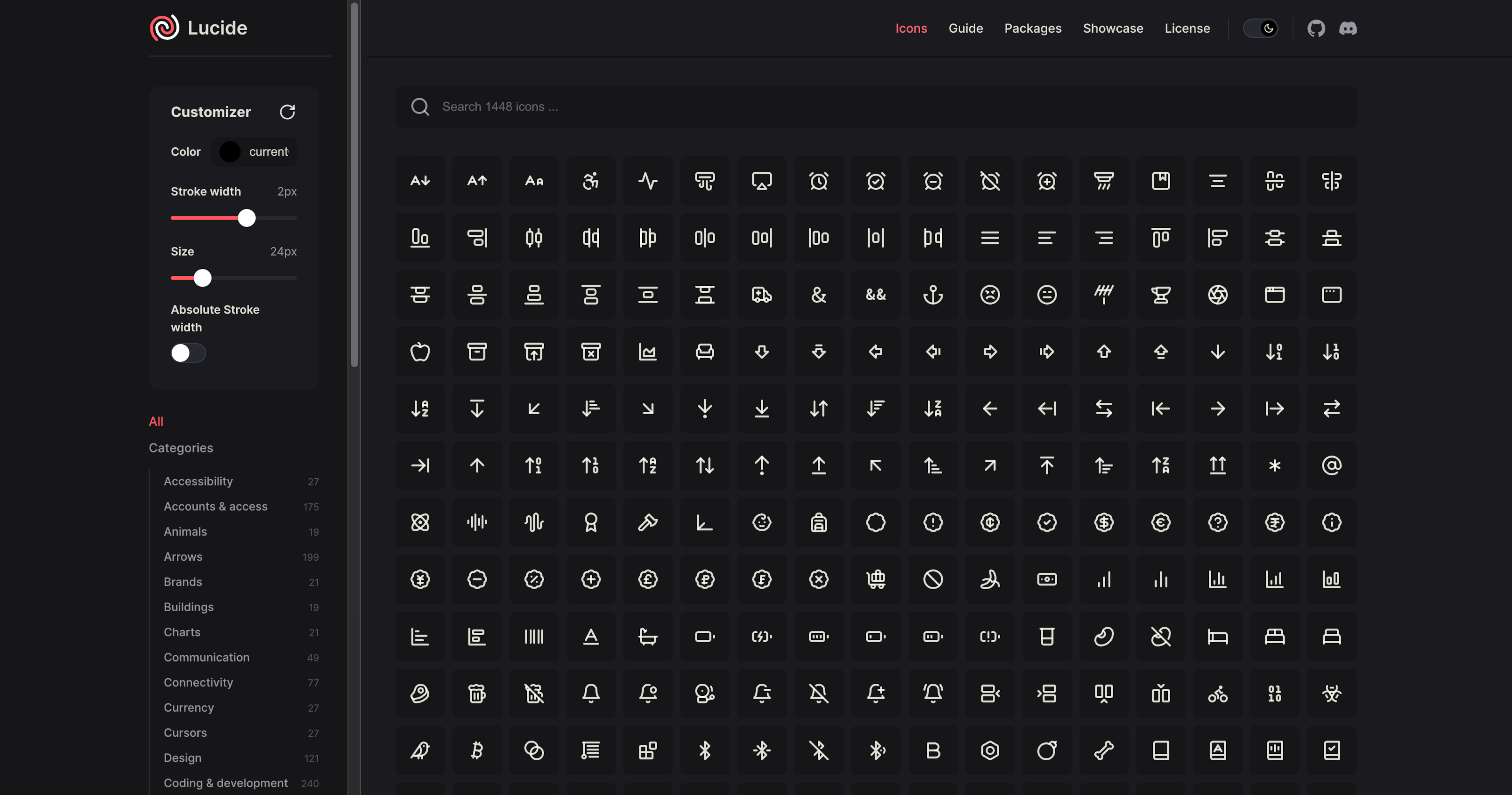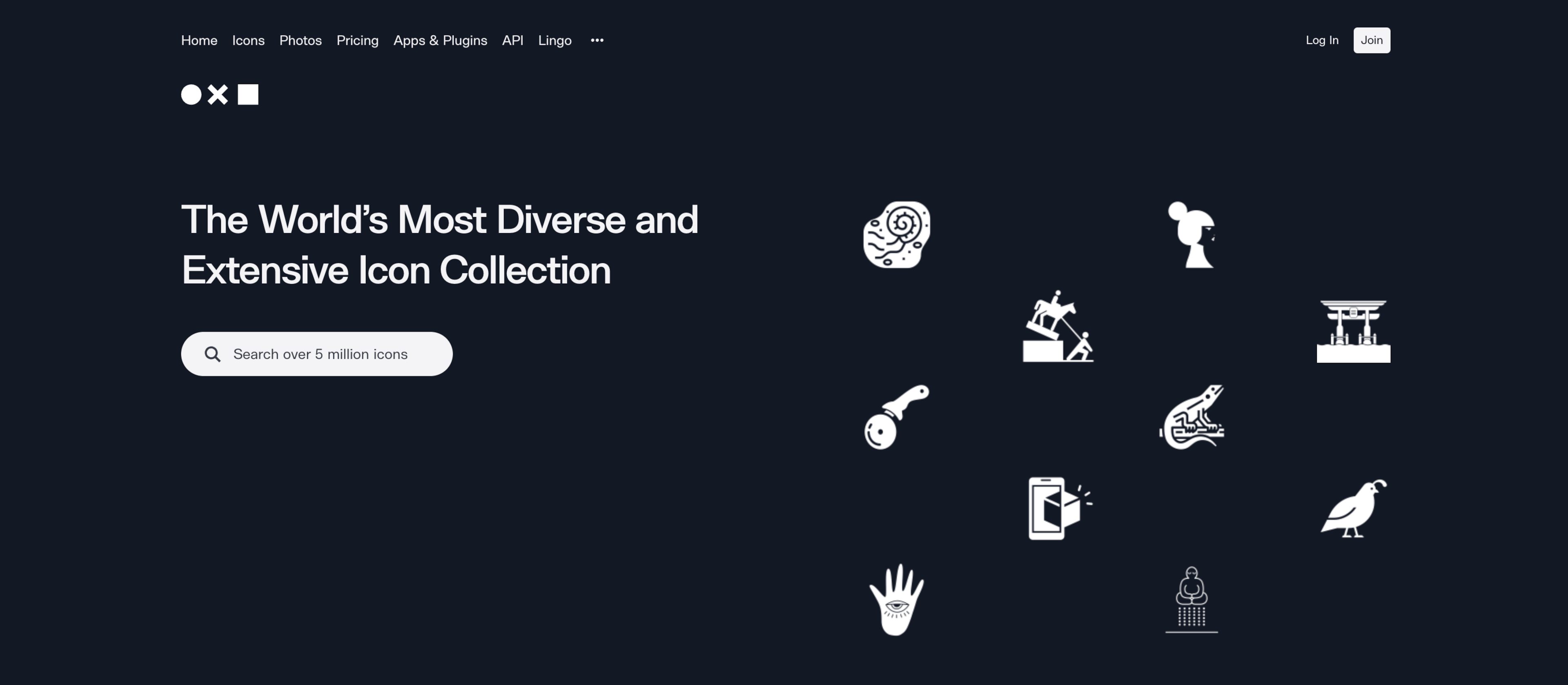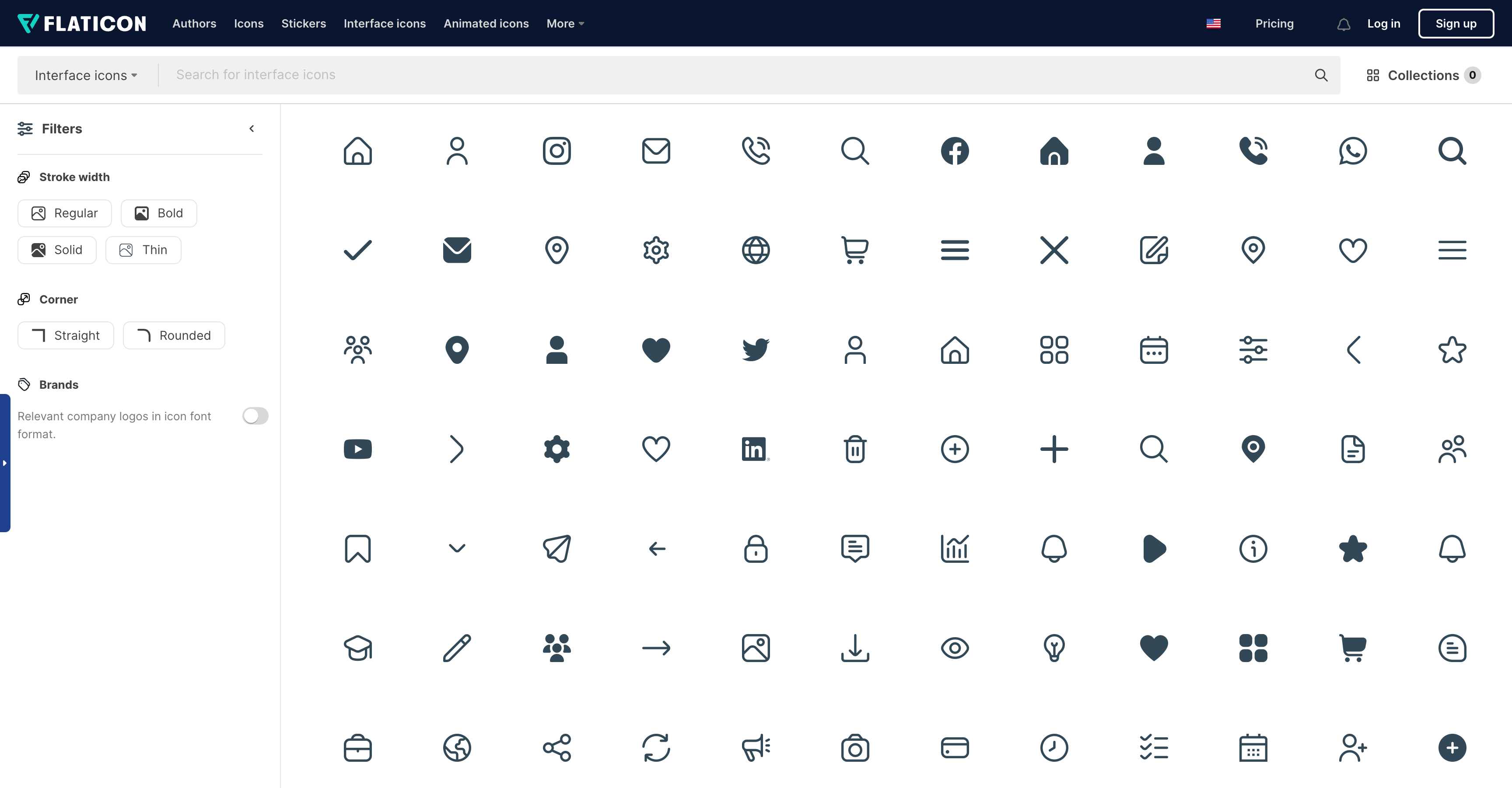
Font Awesome has earned its reputation as a leading icon library, trusted by countless web designers for its vast collection and straightforward integration. Yet, it's not always the perfect fit for every project. Maybe you're after a different visual style, or you find it impractical to load an entire set when you only need a few.
Whatever drives your search for Font Awesome alternatives, this blog post has you covered. We've rounded up the top 10 Font Awesome alternatives for 2025, featuring a mix of traditional icon fonts and modern SVG options.
1. Hugeicons
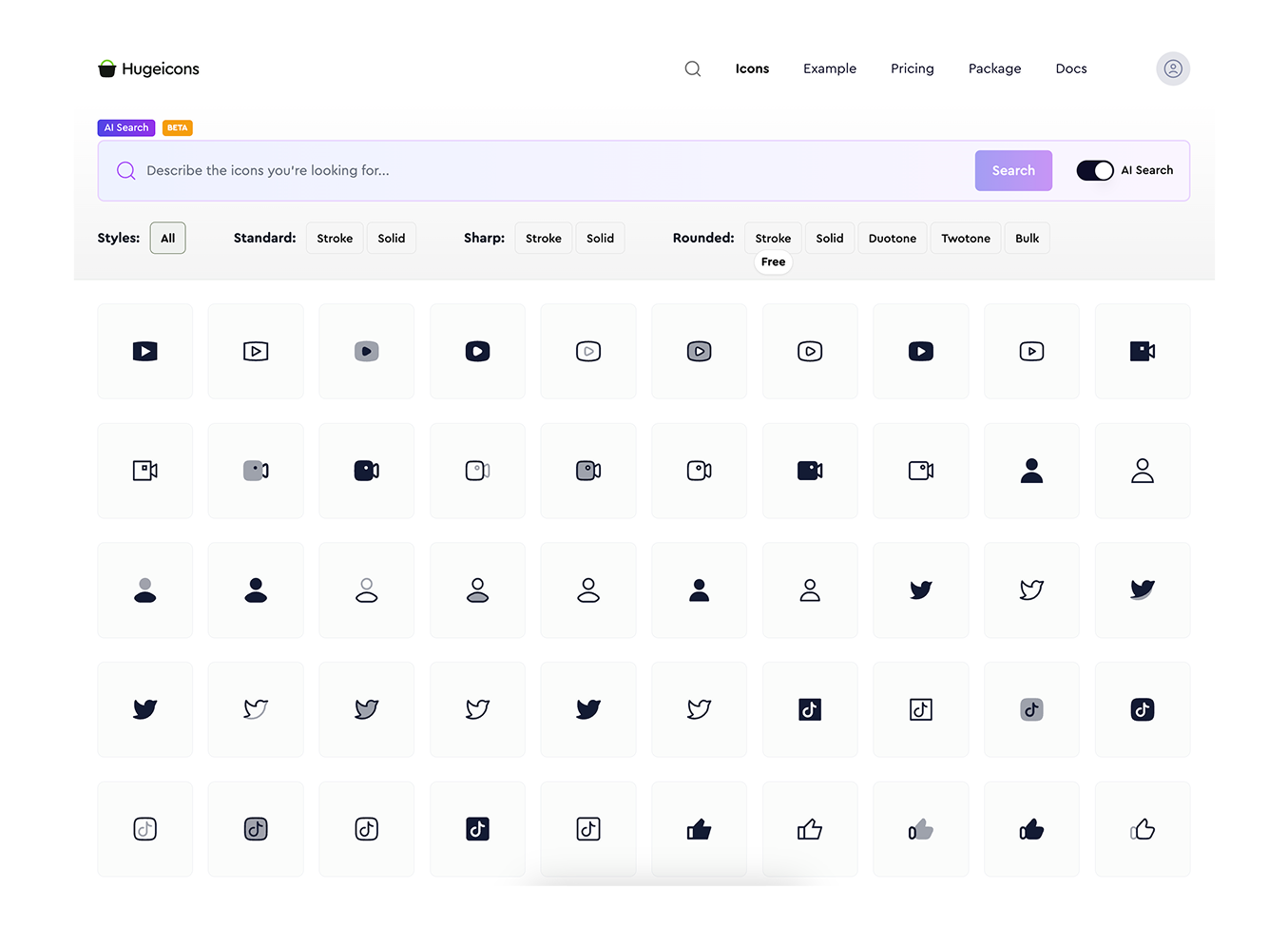
Hugeicons Features
- Massive Icon Collection – Over 37,000 icons across 59 categories, with continuous updates.
- Open-Source Access – Includes 4,000+ free and open-source icons for unlimited personal and commercial use.
- Multiple Styles – Offers a variety of styles, including:
- Rounded (Stroke, Two-tone, Solid, Bulk, Duotone)
- Sharp (Stroke, Solid)
- Standard (Stroke, Solid)
- Customizable Options – Icons available in both stroke and outlined/flattened variations for flexible design choices.
2. Feather Icons
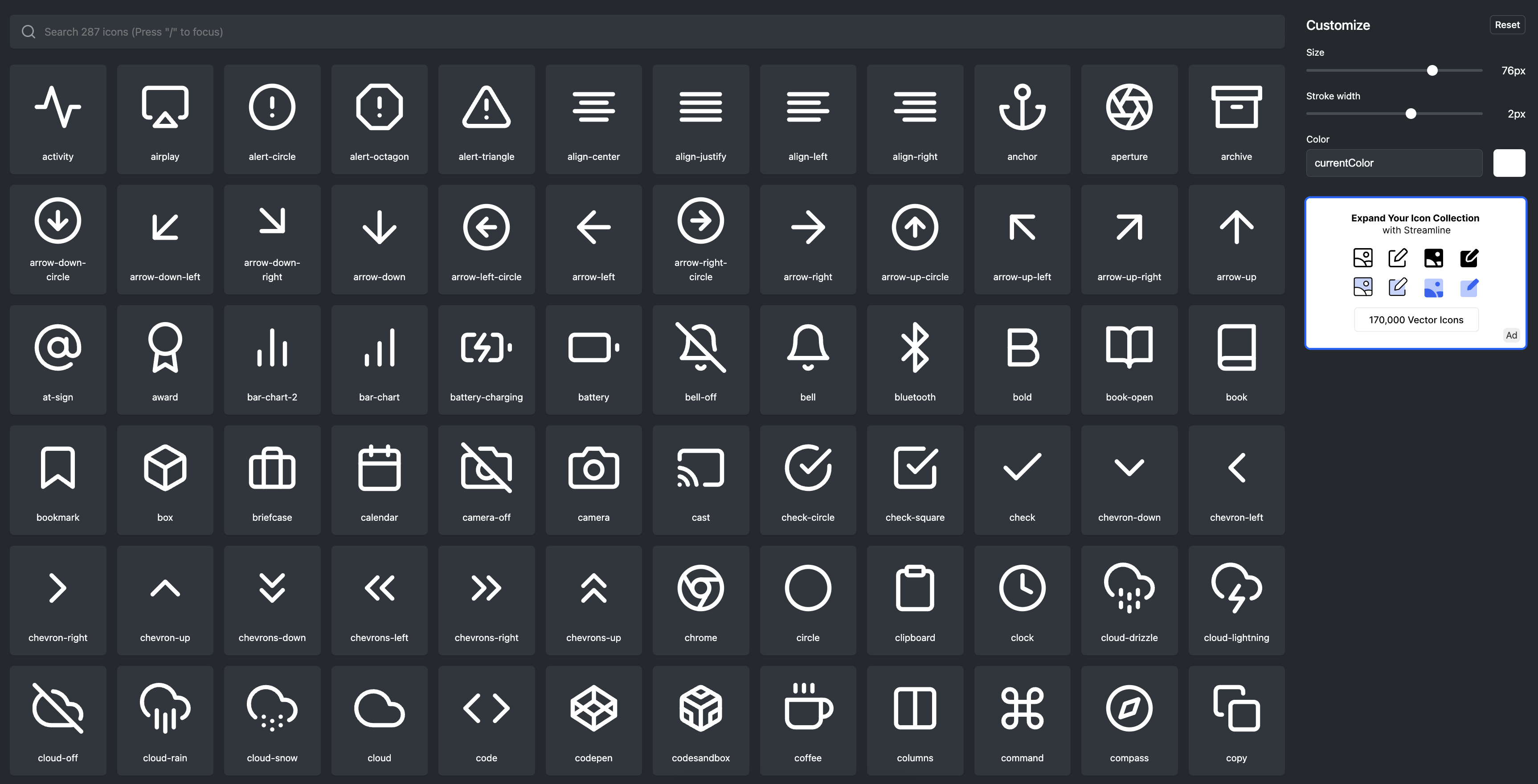
Feather Icons Features:
- Open-source
- Over 280+ ultra-crisp, lightweight line icons
- SVG-based for easy customization
- Minimalist design for modern UI/UX
Pros:
- High-quality open-source icons
- Lightweight and scalable for web & mobile apps
- Simple and elegant, fitting various design styles
- Room for improvement in usability and visual coherence
Cons:
- Limited icon set compared to larger libraries
- No built-in customization for stroke width or styles
- Variability in visual consistency across different screens and DPIs
Feather Icons is a high-quality, open-source icon set known for its clean design and community-driven development. While it outshines many free alternatives, it could benefit from a larger icon selection and improved consistency across different screen resolutions. However, continuous updates and contributions promise future enhancements.
3. Material Design Icons
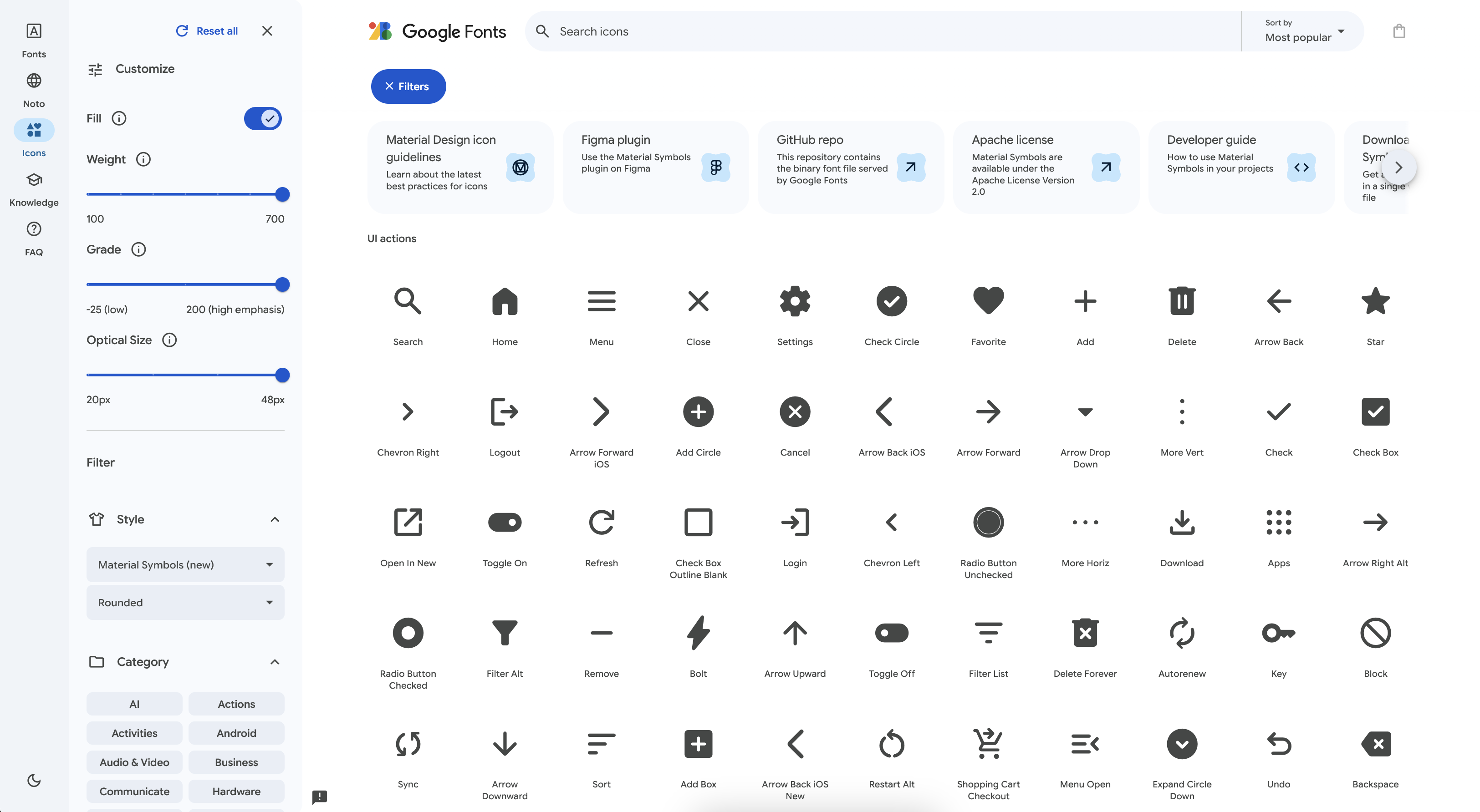
Material Design Icons Features:
- Follows Google's Material Design aesthetics
- Over 2,500+ icons across 15 categories
- Supports multiple formats (SVG, PNG, web font)
- Extensive documentation and structured guidelines
Pros:
- Mobile-first design approach
- Optimized for accessibility and clarity
- Dark theme and adaptive icon options available
- Easily integrates with Google Fonts and Material UI frameworks
Cons:
- Limited customization options compared to fully editable icon sets
- Potential limitations on creativity due to the comprehensive design system
Material Design Icons provide a structured, consistent collection that enhances UI interactions with built-in animations. While the strict design system may limit creative flexibility, it's a great choice for those who prefer Google's responsive aesthetic.
4.Phosphor Icons
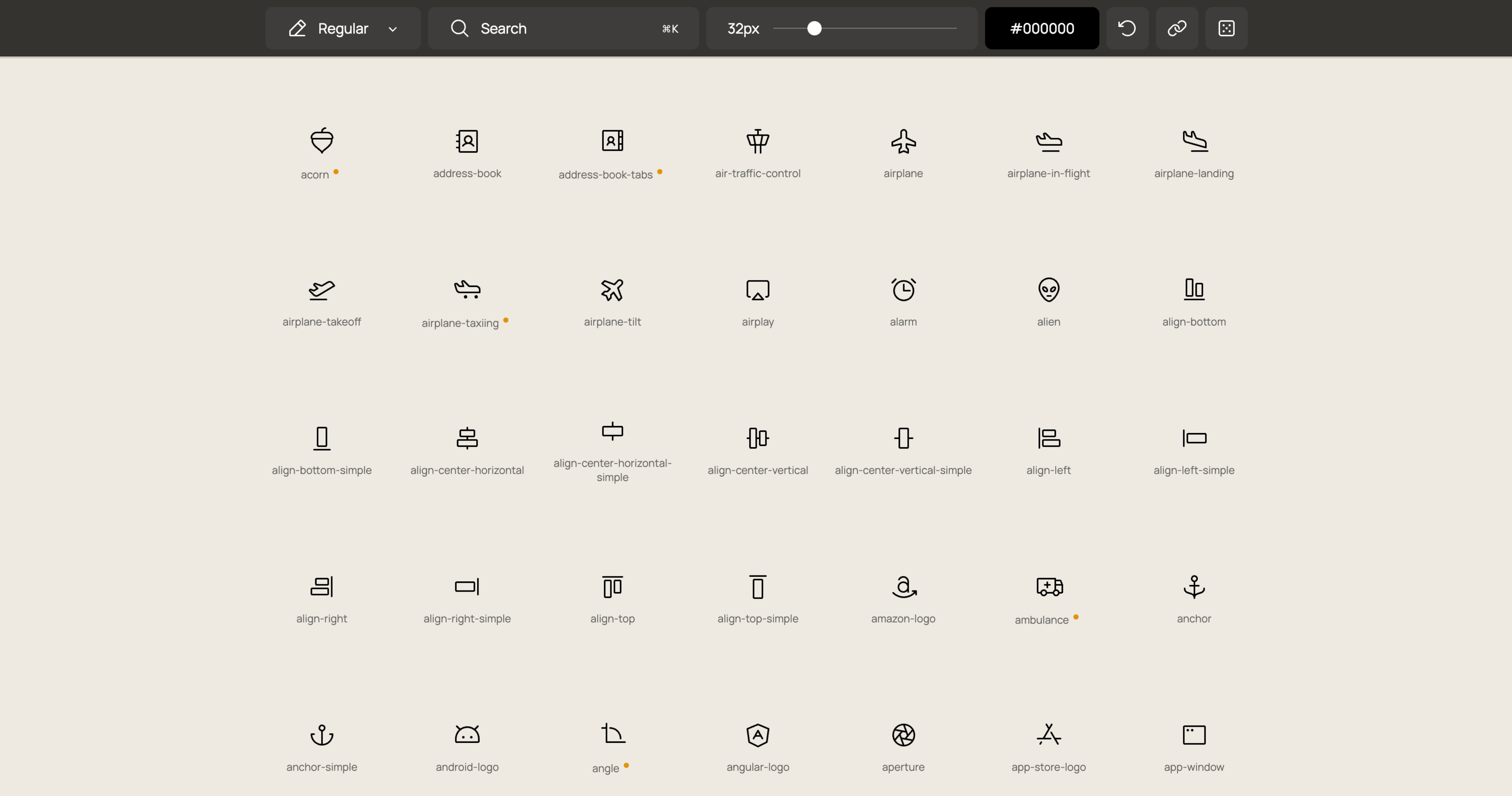
Phosphor Icons Features:
- Streamlined and modern design
- Versatile usage
- Over 6,000 icons in multiple styles
- Supports multiple formats including SVG, PNG, and web fonts
Pros:
- Appeals to minimalists
- Can be used across various design projects
- Offers thin, regular, bold, and fill styles for flexibility
Cons:
- Limited collection compared to other options
- Some icons may lack fine detail at smaller sizes
Phosphor Icons is a sleek, minimalist icon library featuring over 6,000 icons in various styles, including thin, regular, bold, and fill. While it has a smaller collection than some competitors, its versatility and contemporary aesthetic make it a great choice for those who prioritize quality and adaptability in design.
5. Bootstrap Icons
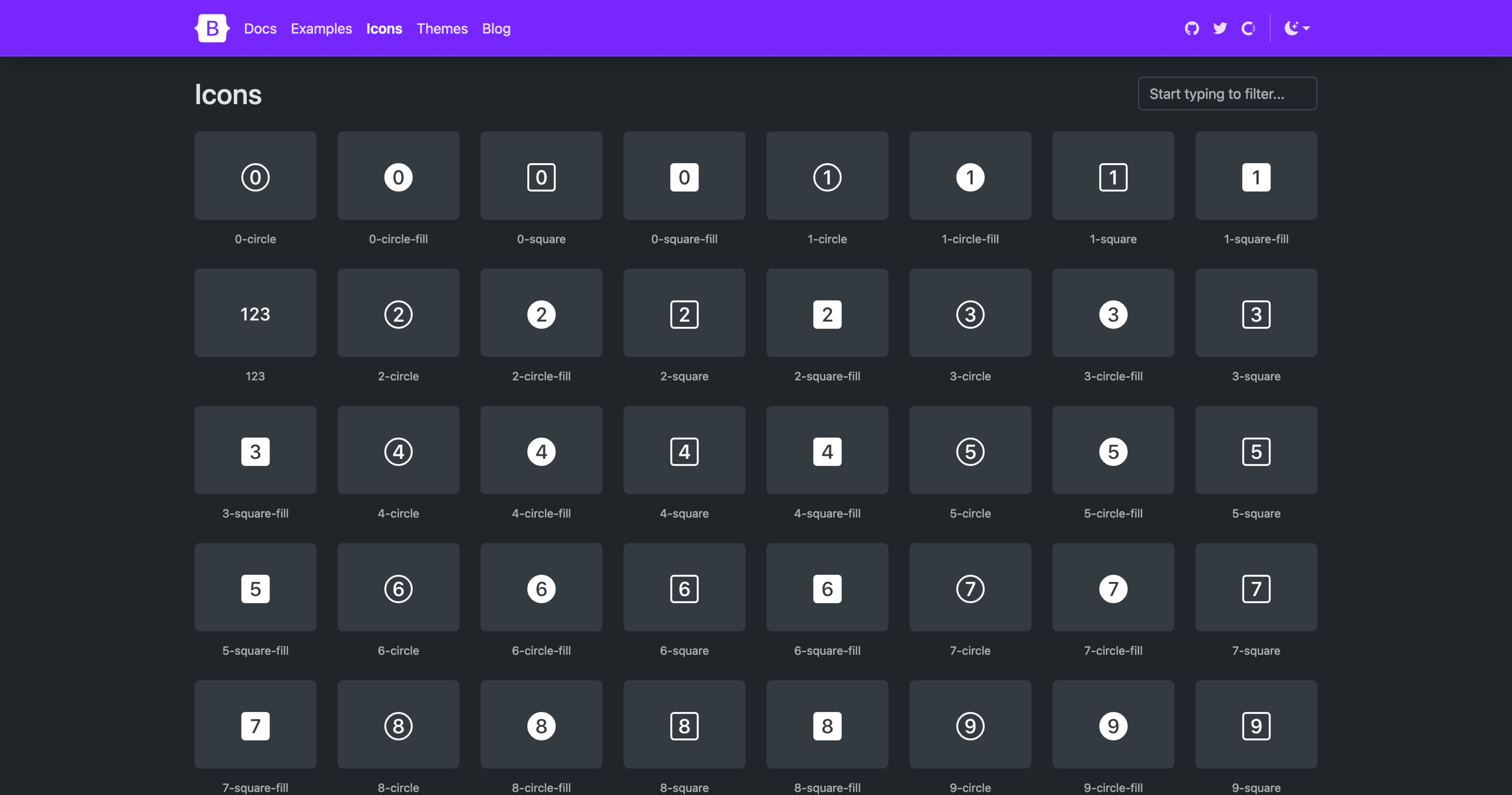
Bootstrap Icons Features:
- Designed for easy integration with web development projects
- Icons inherit CSS size and color
- Available in SVG and web font formats for flexibility
Pros:
- Simple, scalable, and customizable font icons, including icon fonts
- Can be used as web fonts
- Seamless compatibility with Bootstrap-based projects
Cons:
- Performance on older devices might be an issue